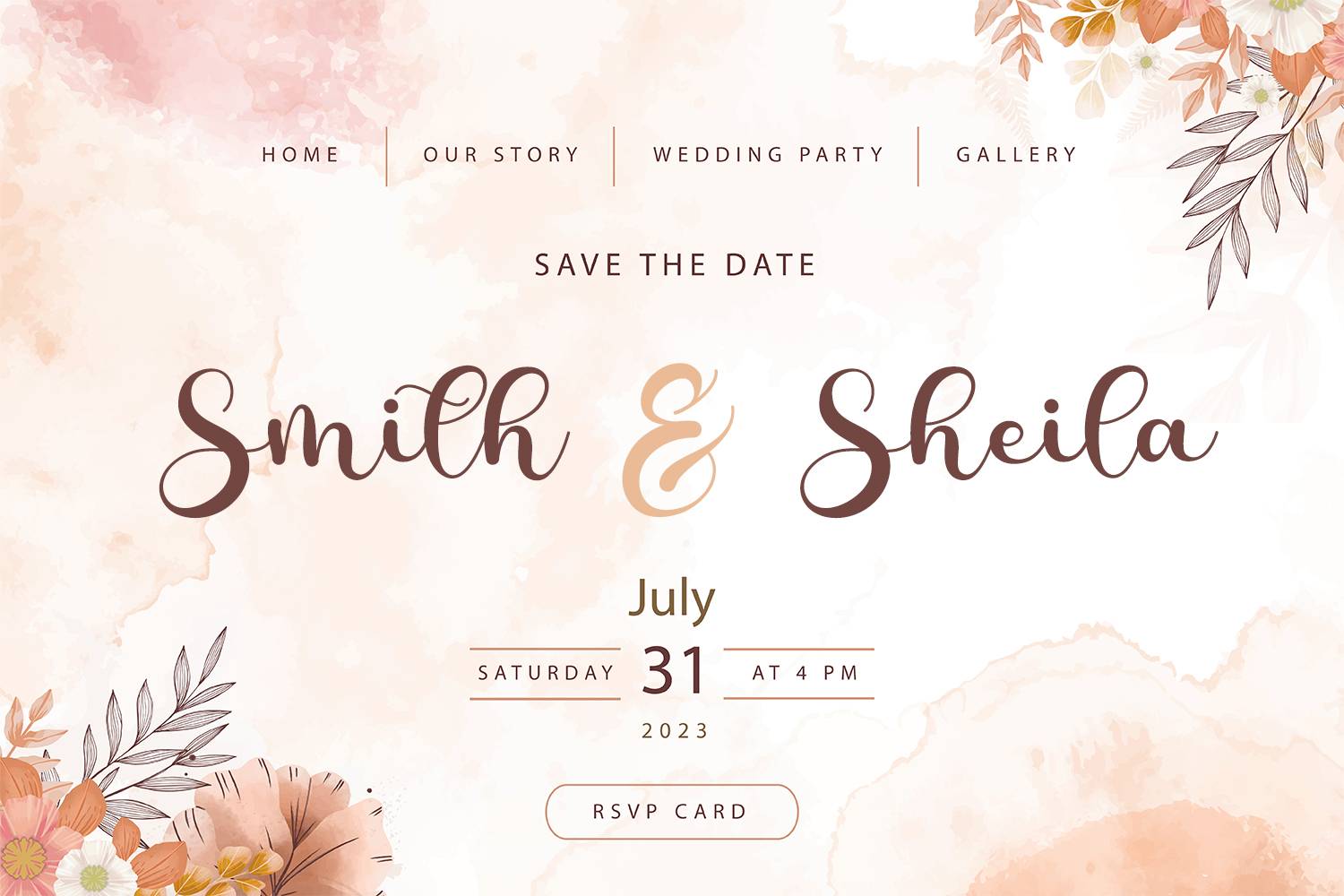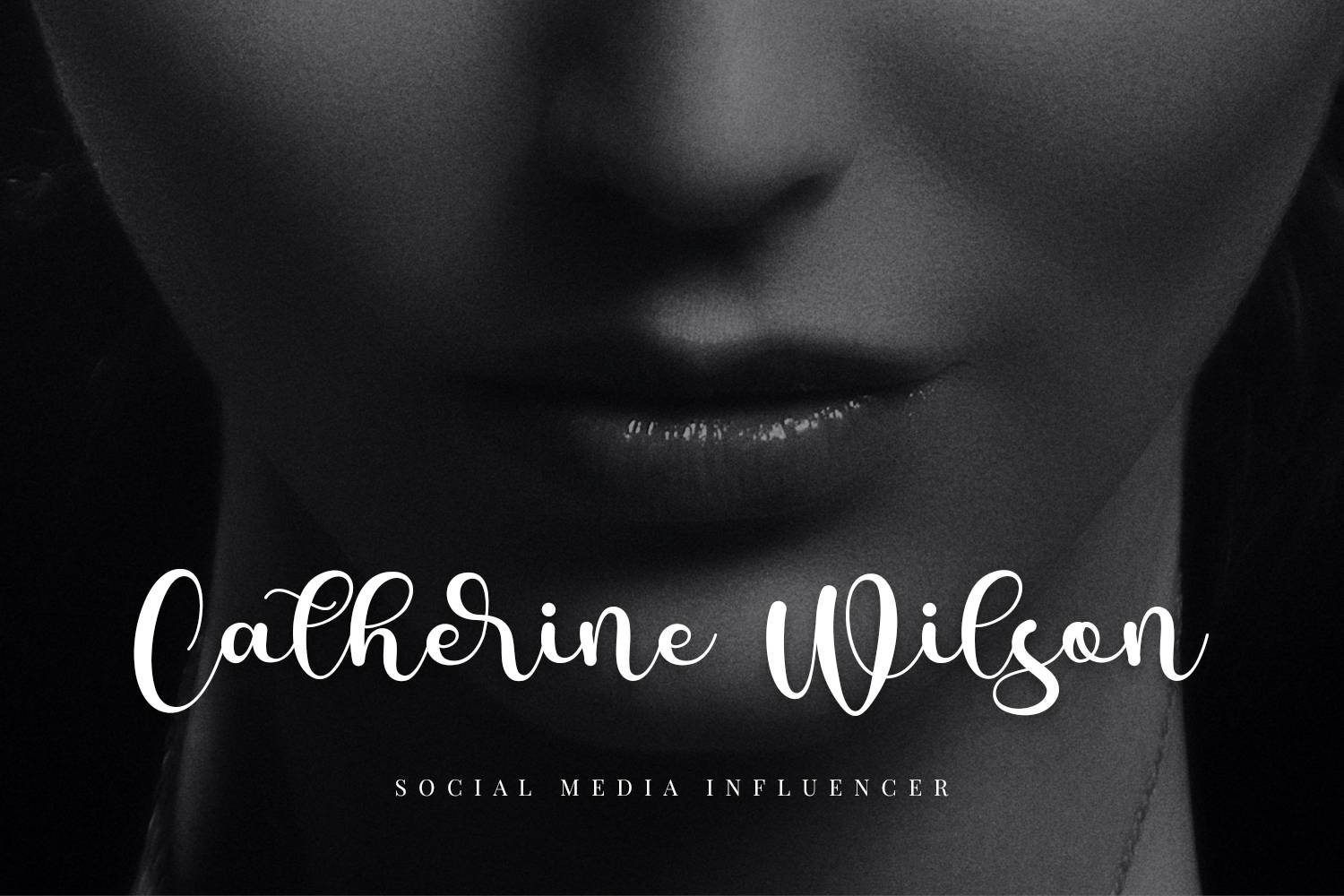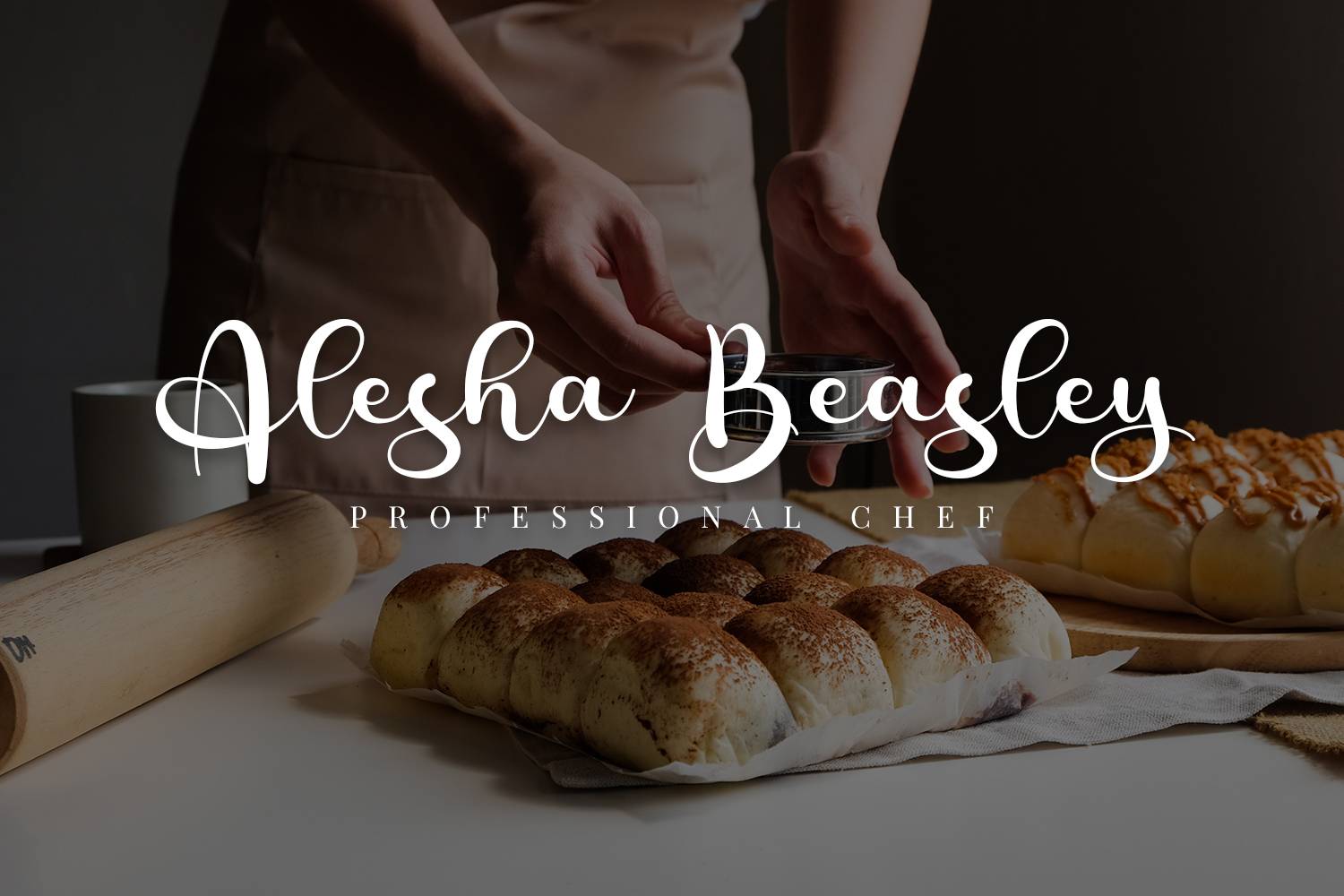
Childish Font is a playful and elegant script typeface with a hand-drawn, flowing style that features smooth curves and varying stroke thickness. Its lively and casual character makes it ideal for creative projects, children's branding, invitations, and any design that benefits from a whimsical, friendly, yet sophisticated look. This font works best in headlines or decorative text where its unique personality can truly shine.